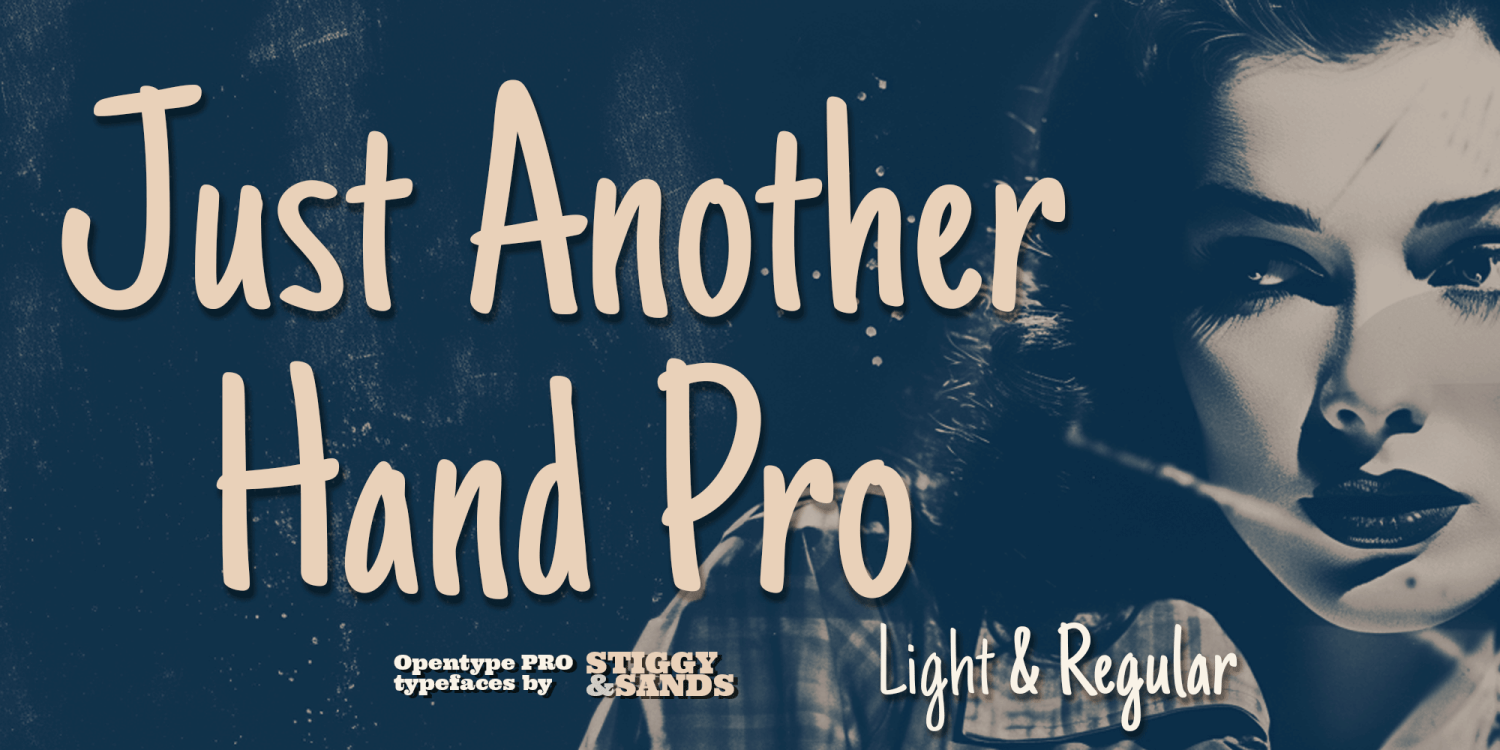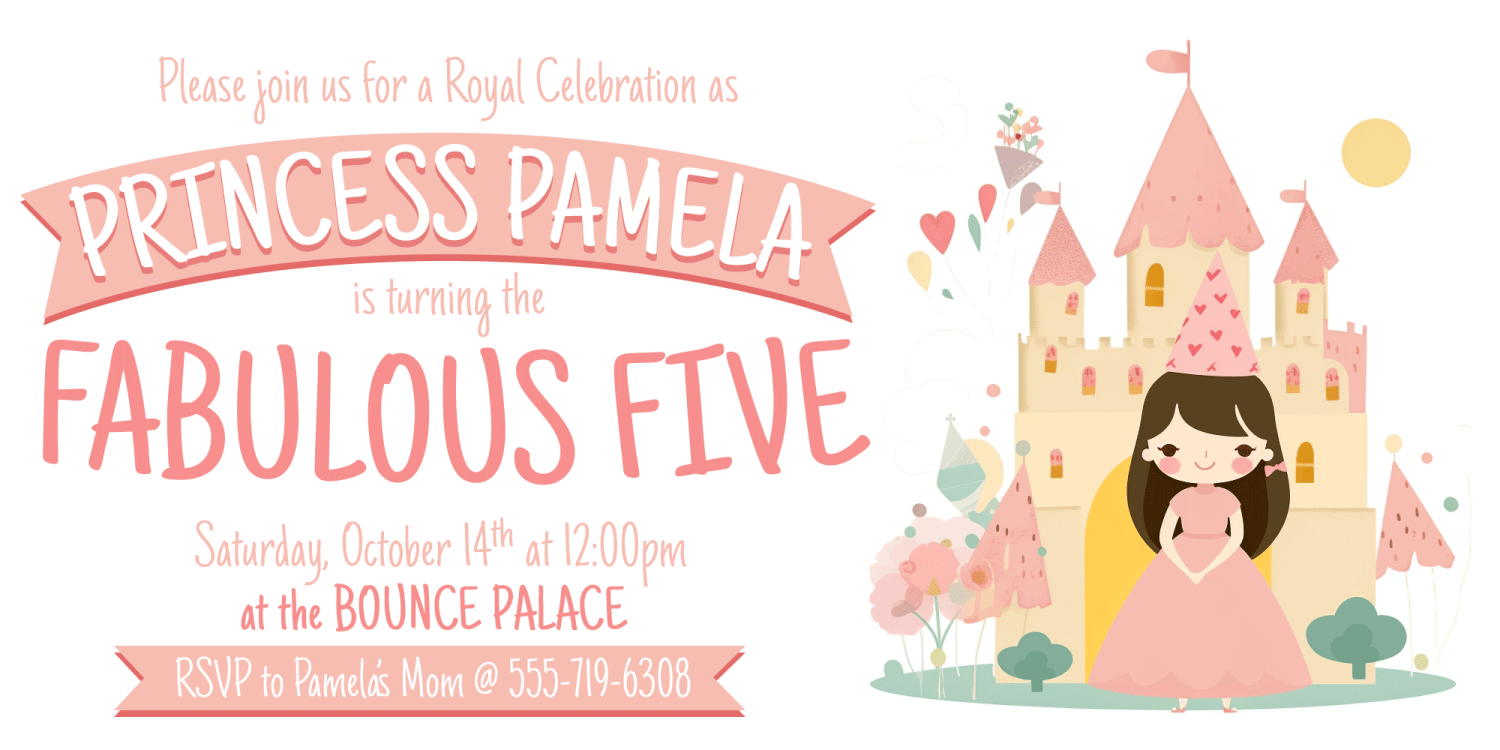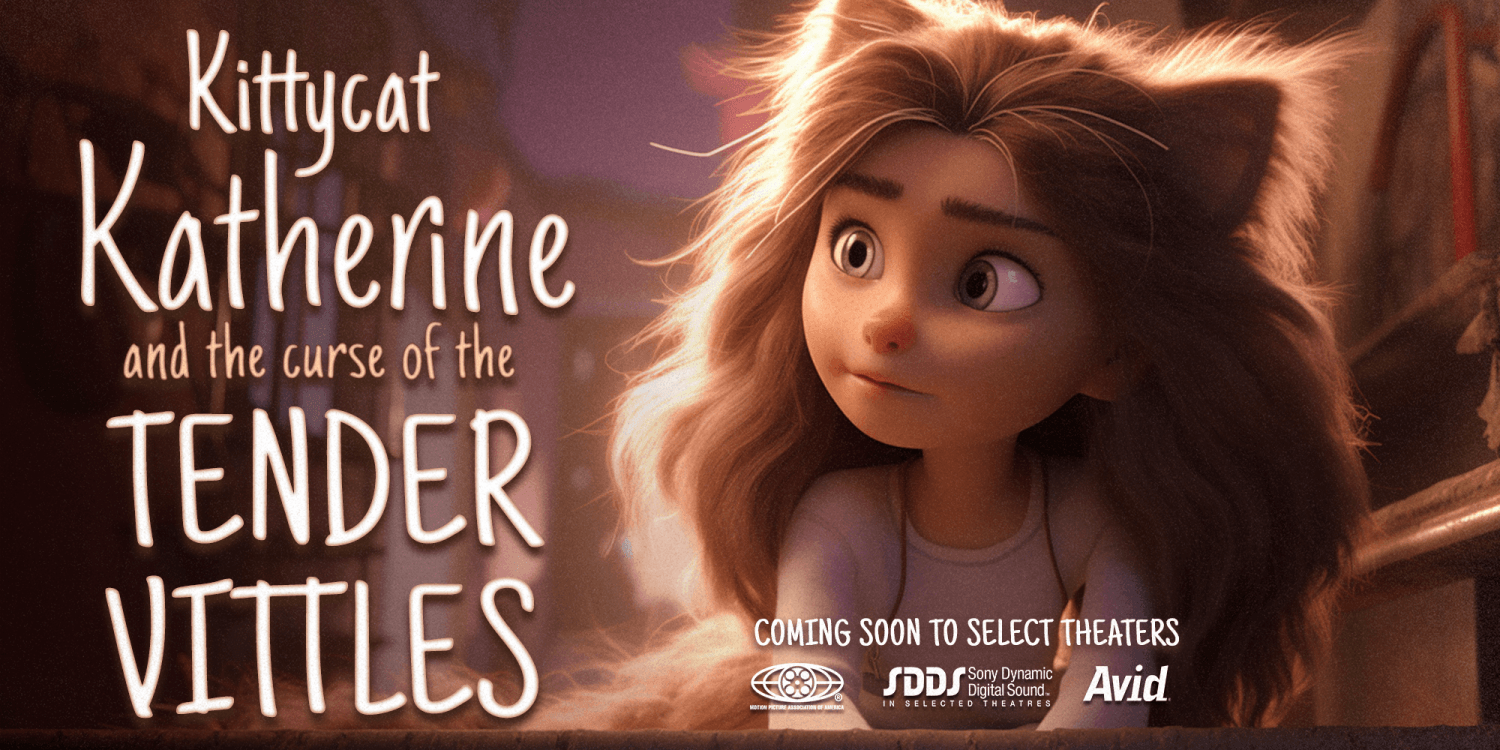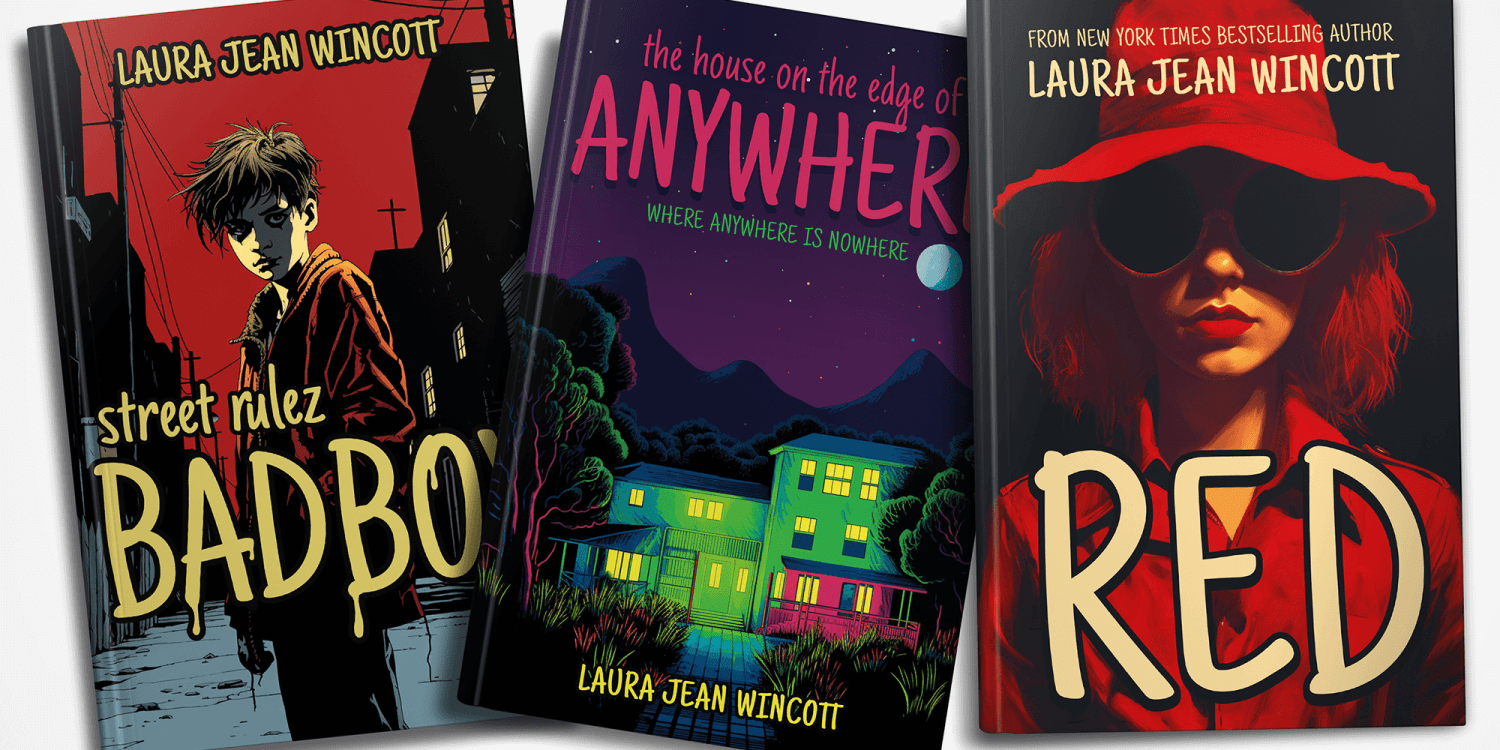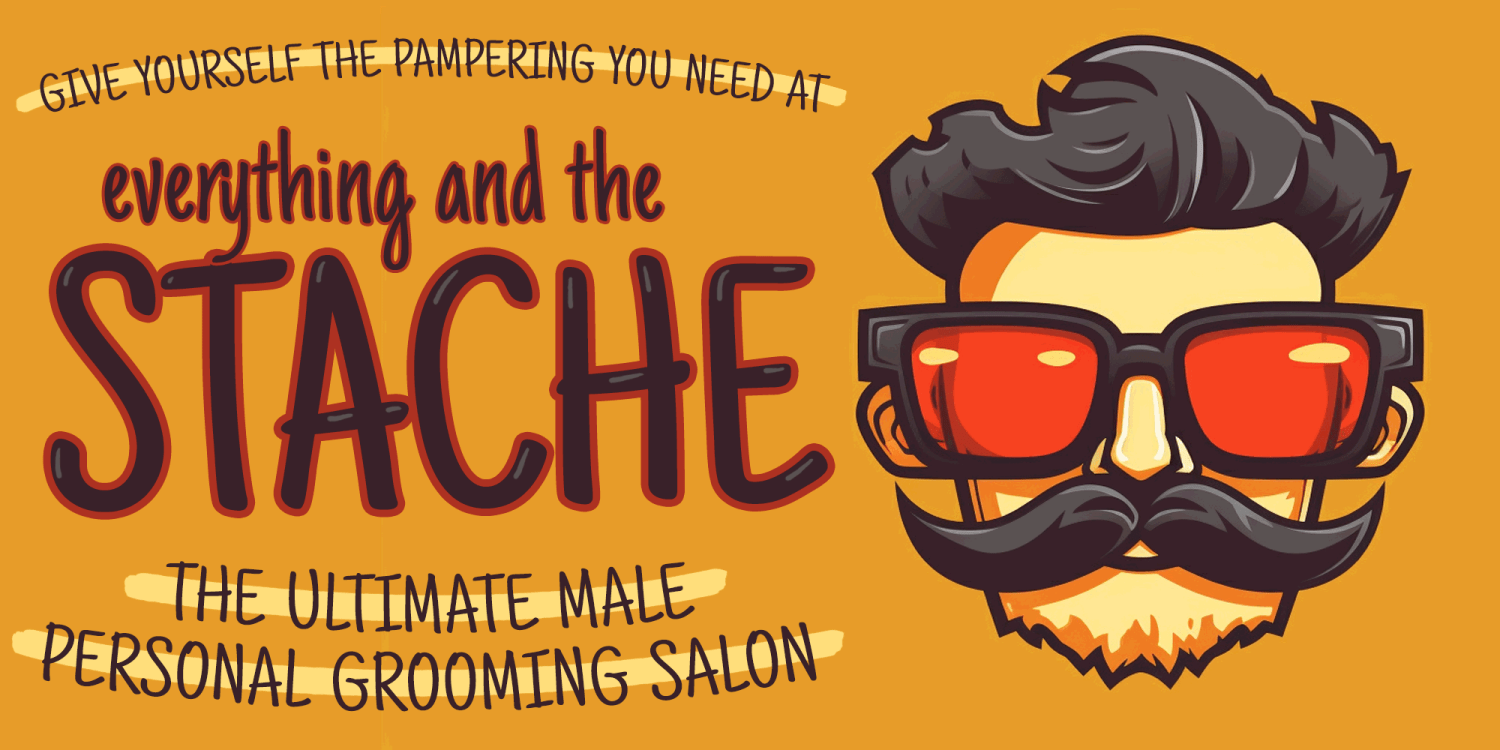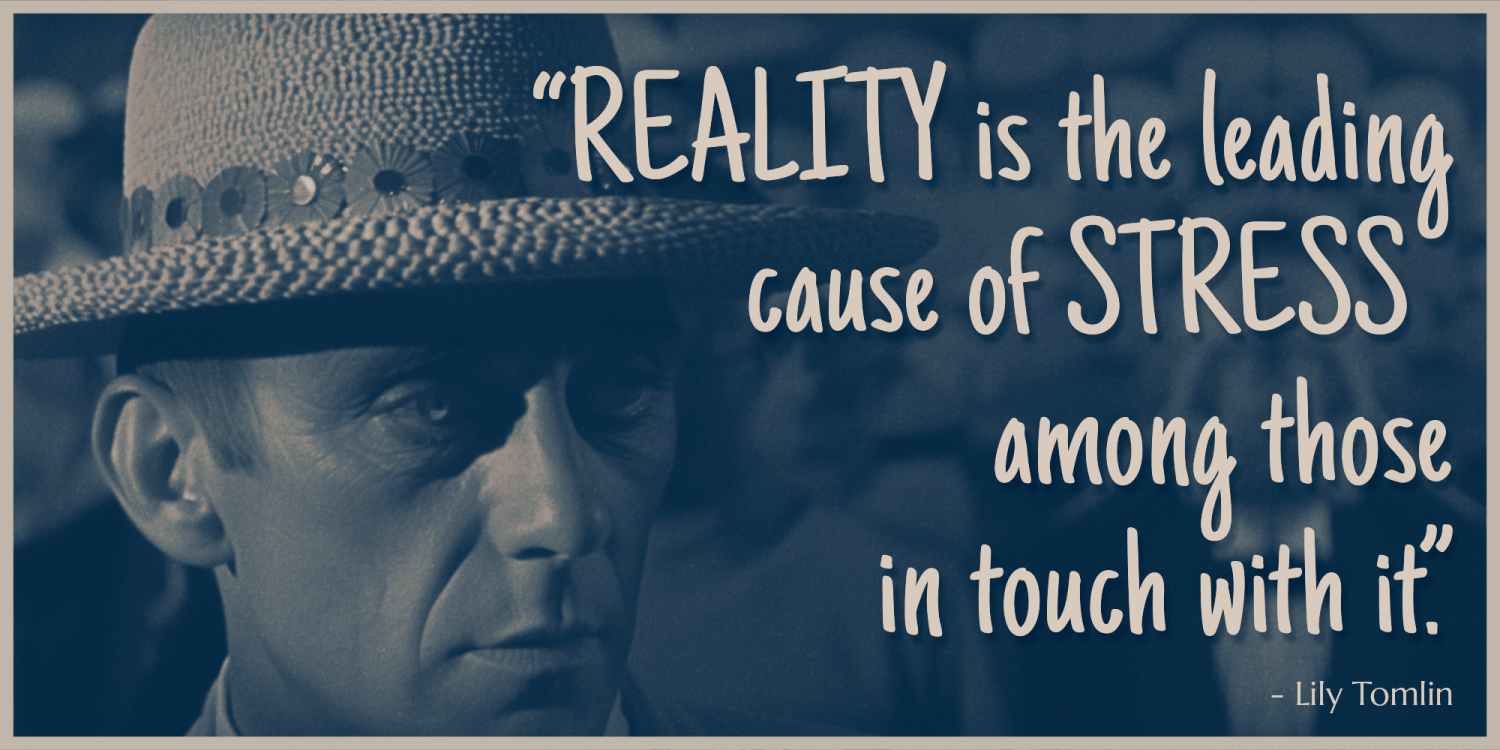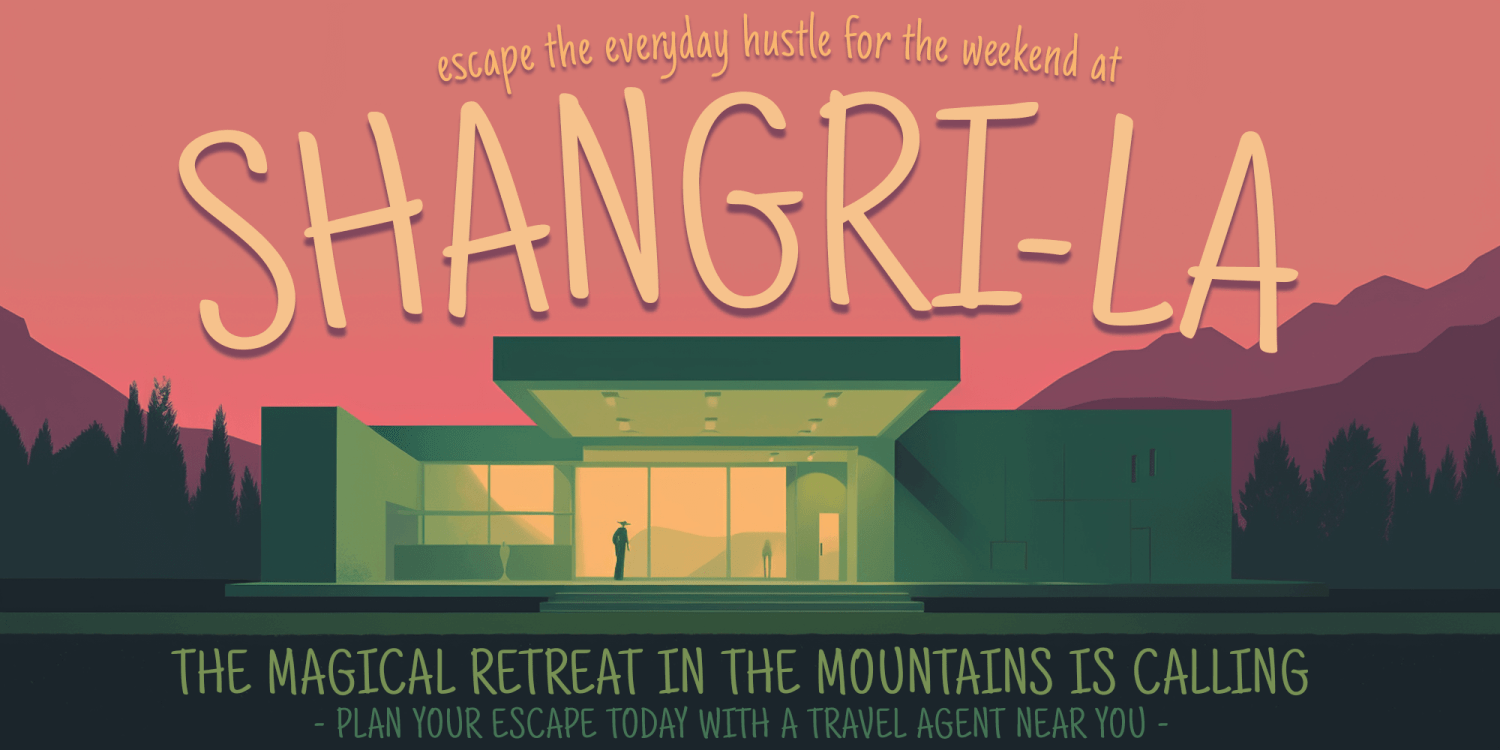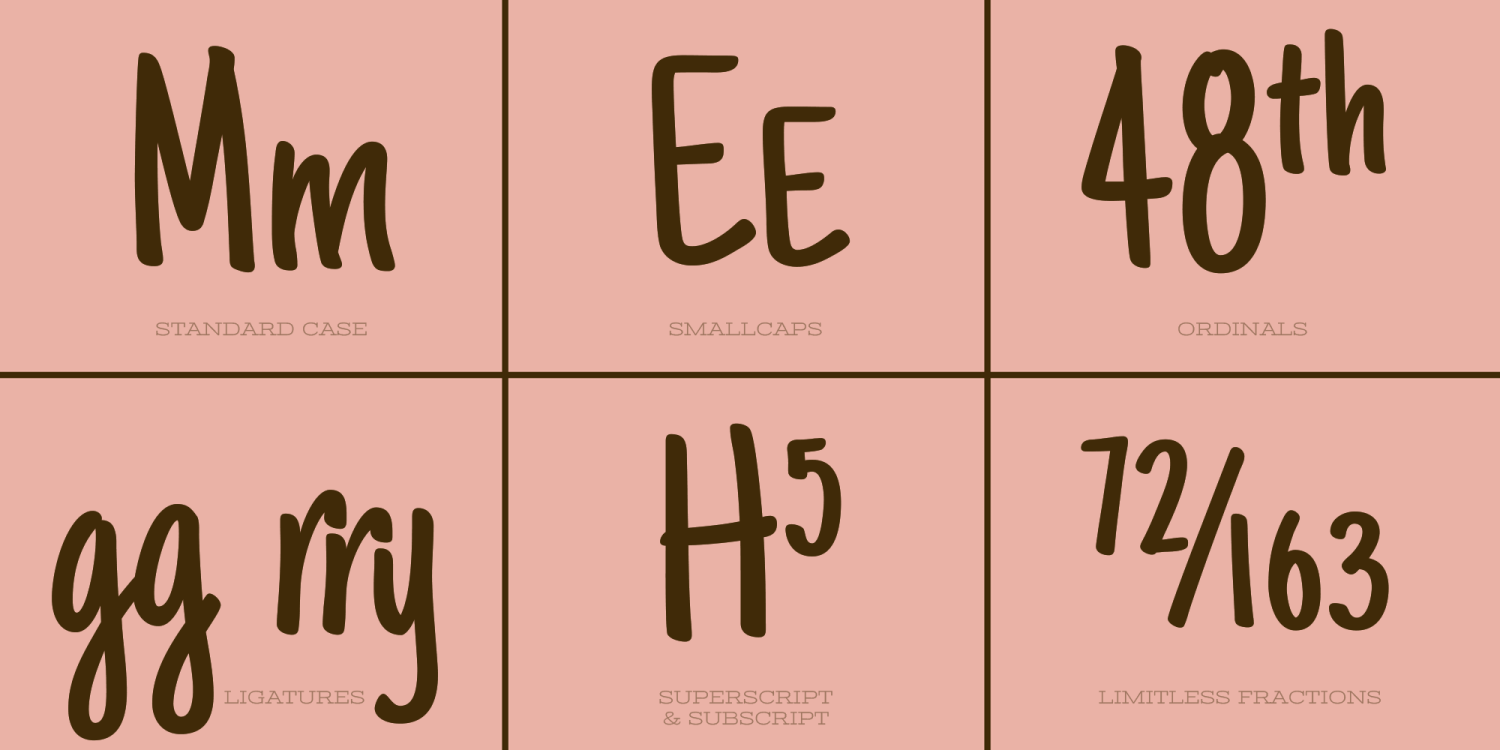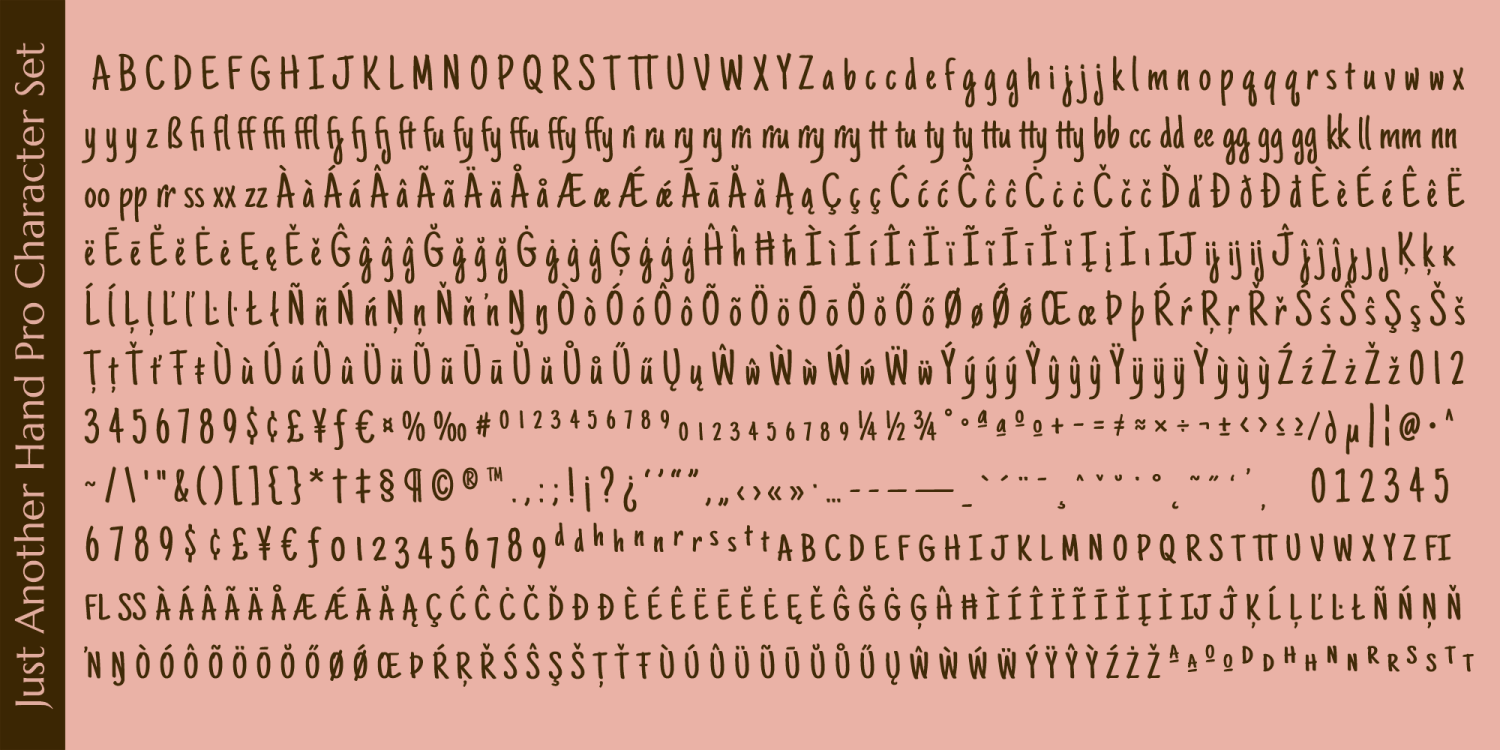
Just Another Hand Pro
A little personality, a little restraint... a style that works for all sorts of projects across the board.
The Just Another Hand Pro family contains 659 characters per font. The expanded SmallCaps option gives the typestyle a little extra versatility, expanding on the original typeface inspiration.
Opentype features include:
- A collection of ligatures
- Smallcaps
- Limitless Fractions
- Full set of Inferiors and Superiors
- Proportional figures and Tabular figure sets